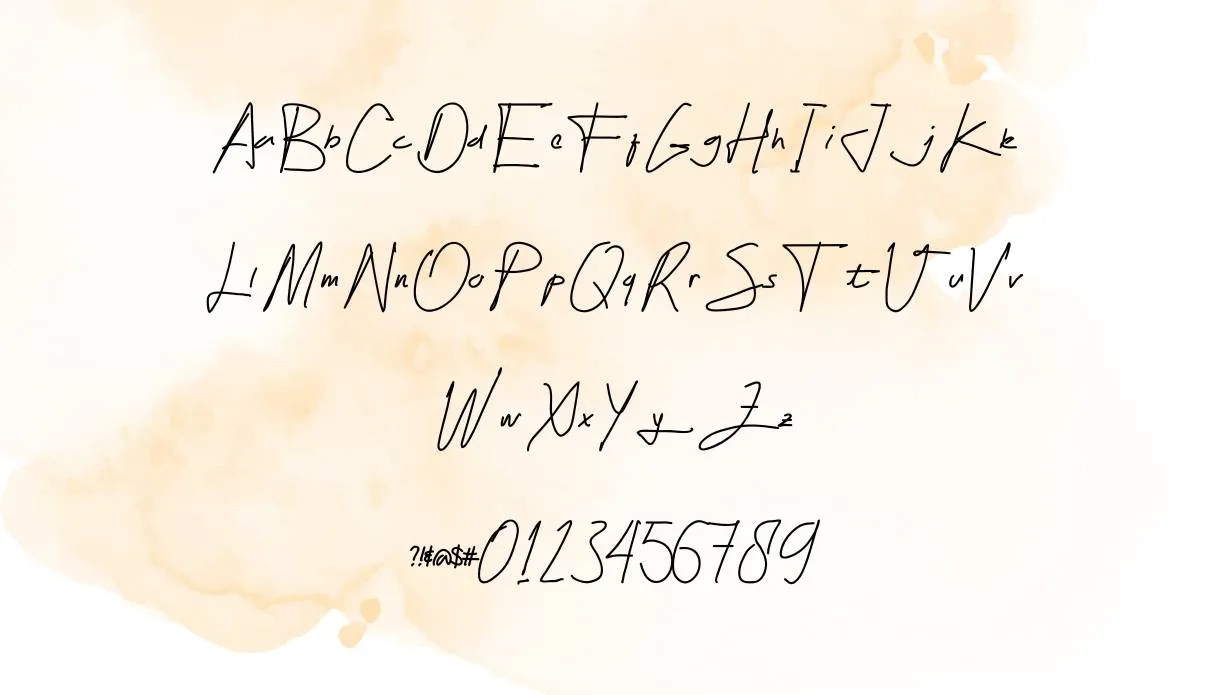
The Hasiant Handwritten Font provides a relaxed and informal design with a handwritten look.
It’s a practical choice for various design applications, from personal projects to informal branding, where a friendly and approachable look is desired. To ensure an optimal response from your audience, consider pairing the paris font with this font family for a compelling combination.